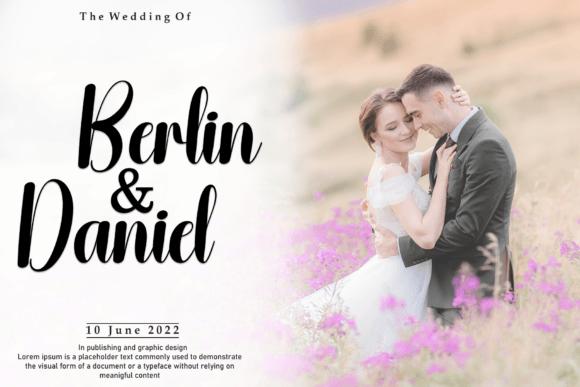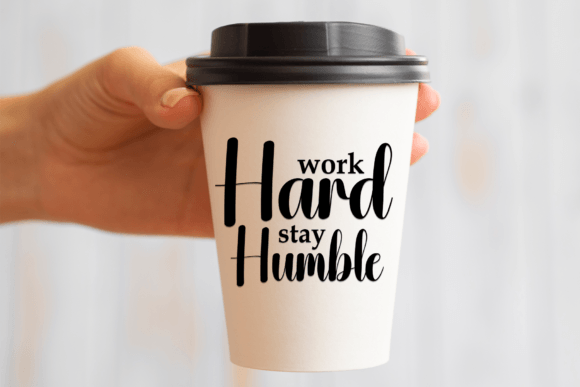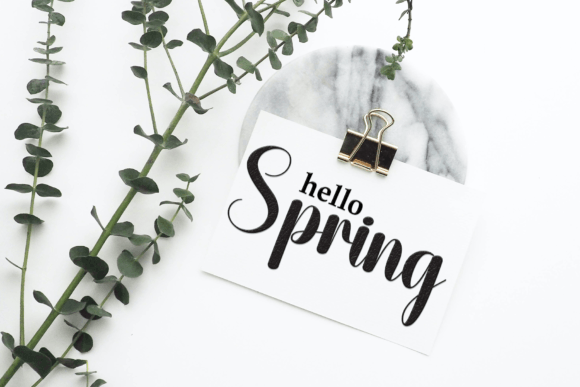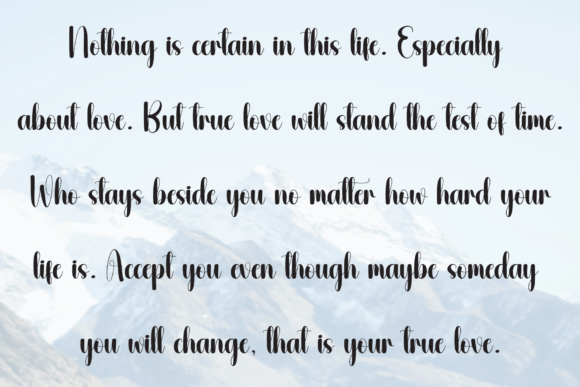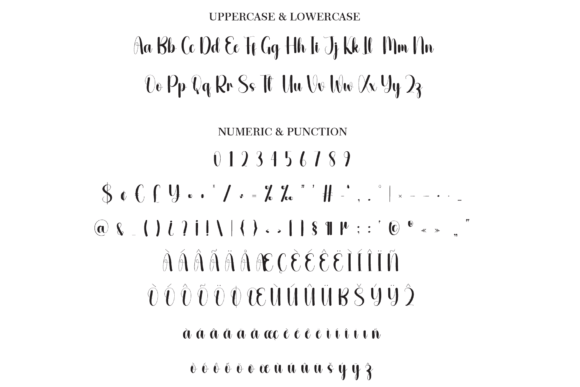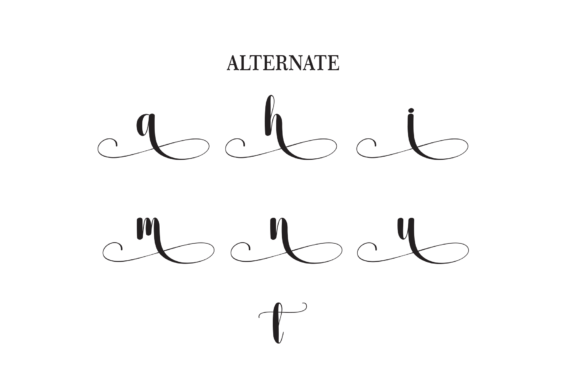
Attention Font: Elevate Your Designs with Elegance and Sophistication
In the realm of typography, fonts play a pivotal role in conveying messages, evoking emotions, and creating lasting impressions. Among the myriad of typefaces available, the Attention Font stands out as a captivating and expressive script font that commands attention with its fluid strokes and graceful curves. Designed to add a touch of sophistication to your designs, Attention Font is perfect for logos, invitations, branding projects, and any creative endeavor where style and allure are paramount.
The Essence of Attention Font
Attention Font is characterized by its elegant and dynamic letterforms, which are meticulously crafted to exude a sense of refinement and luxury. Each letter is designed with fluid strokes that seamlessly connect, creating a harmonious flow that is both visually appealing and easy to read. The font’s graceful curves add a touch of femininity and softness, making it an excellent choice for designs that require a sophisticated and elegant look.
One of the key advantages of Attention Font is its versatility. Whether you’re working on a logo, an invitation, or a branding project, this font effortlessly adapts to various design contexts. Its unique blend of elegance and dynamism makes it suitable for a wide range of applications, from high-end fashion brands to creative agencies and lifestyle blogs.
• Logos: Create memorable and impactful logos that stand out with Attention Font. Its distinctive letterforms ensure that your brand’s identity is both unique and recognizable.
• Invitations: Add a touch of sophistication to your invitations, whether it’s for a wedding, a gala, or any special event. Attention Font’s elegant appearance sets the tone for an exclusive and memorable experience.
• Branding Projects: Enhance your brand’s visual identity with Attention Font. Its dynamic and fluid strokes convey a sense of creativity and professionalism, making it ideal for branding materials.
Why Choose Attention Font?
Choosing Attention Font for your design projects comes with several benefits:
• Elegance: Adds a touch of sophistication and luxury to your designs.
• Versatility: Suitable for a wide range of design applications.
• Readability: Fluid strokes and graceful curves ensure that your message is conveyed clearly and effectively.
• Uniqueness: Stands out from more traditional fonts, giving your designs a distinctive look.
Tips for Using Attention Font Effectively
To maximize the impact of Attention Font in your designs, consider the following tips:
• Pair with Complementary Fonts: Combine Attention Font with simpler, sans-serif fonts for contrast and visual hierarchy.
• Adjust Letter Spacing: Optimize letter spacing to enhance readability and aesthetic appeal.
• Experiment with Colors: While Attention Font looks stunning in black or dark colors, don’t hesitate to experiment with other colors that align with your brand’s palette.
Attention Font is more than just a typeface; it’s a design statement that can elevate your creative projects to new heights of elegance and sophistication. With its fluid strokes, graceful curves, and versatile nature, this font is an invaluable asset for designers and crafters looking to make a lasting impression. Whether you’re aiming to create a luxurious brand identity, an elegant invitation, or a captivating logo, Attention Font is the perfect choice for those who value style, allure, and the art of typography.